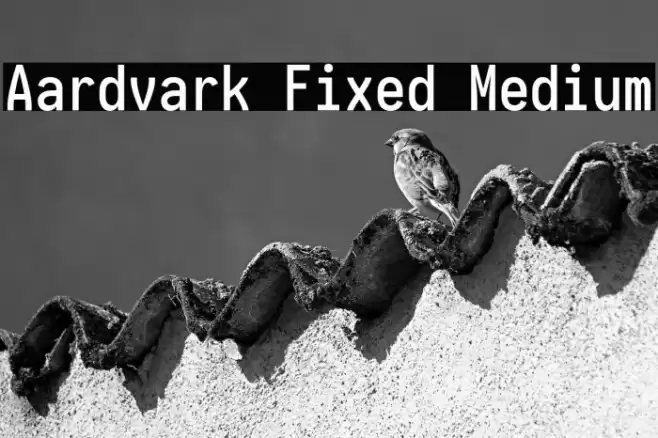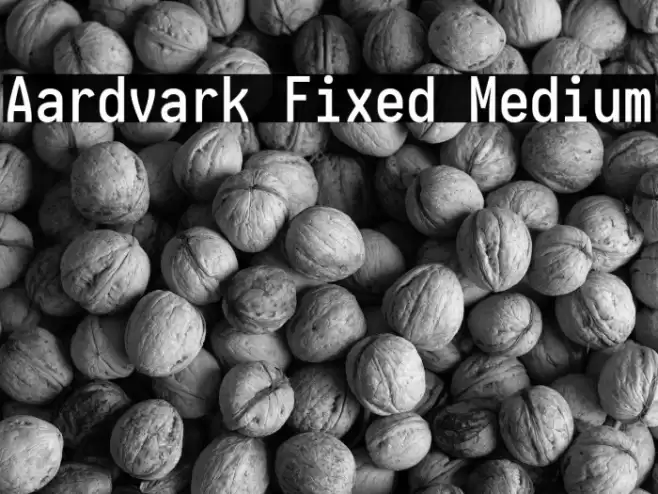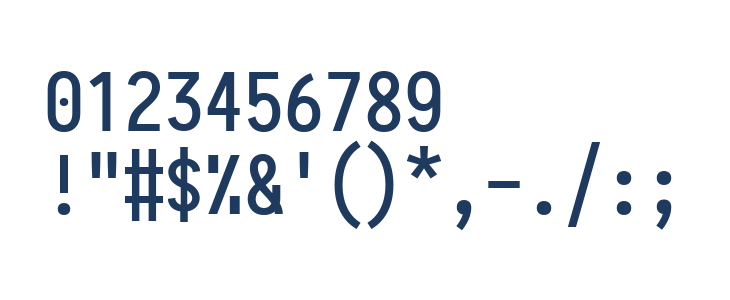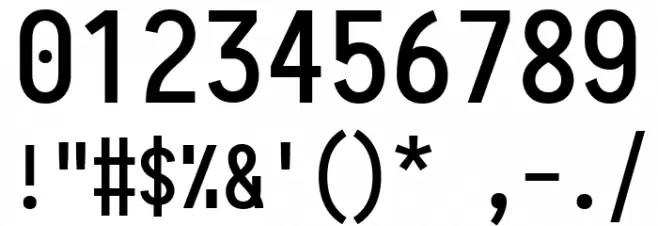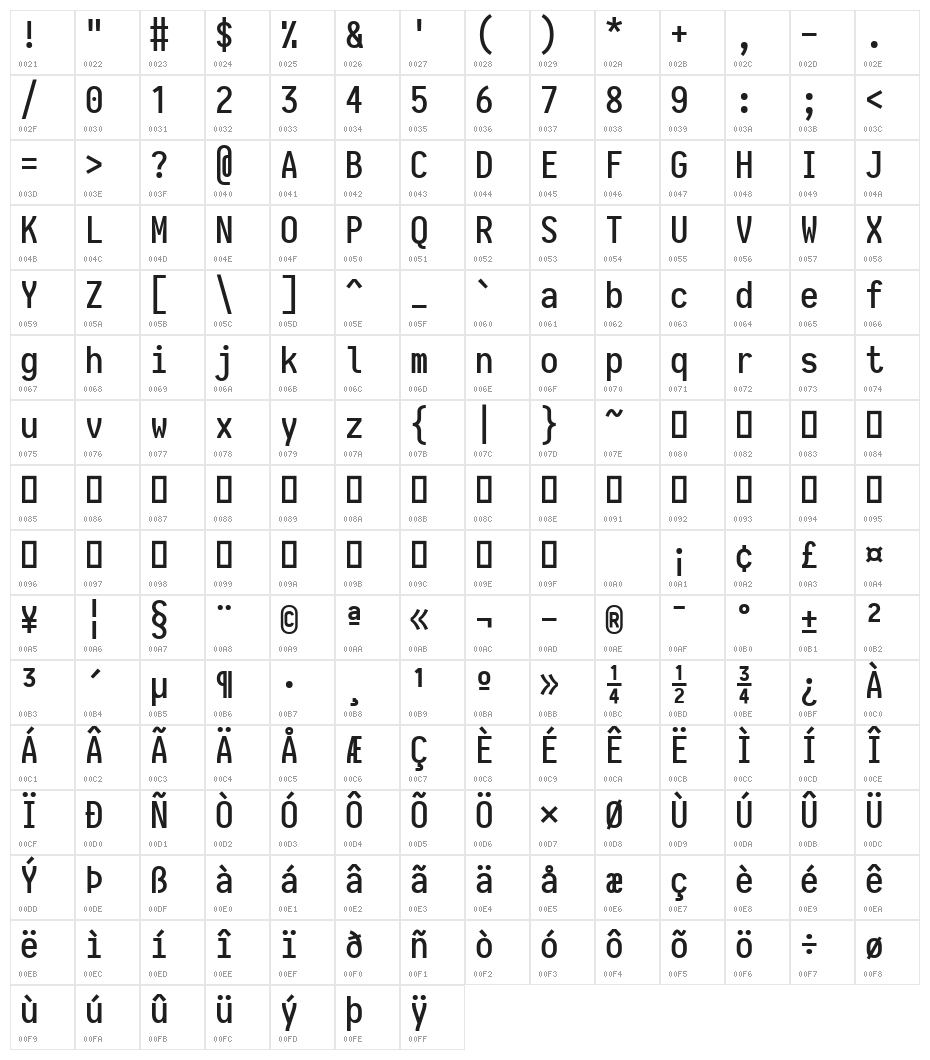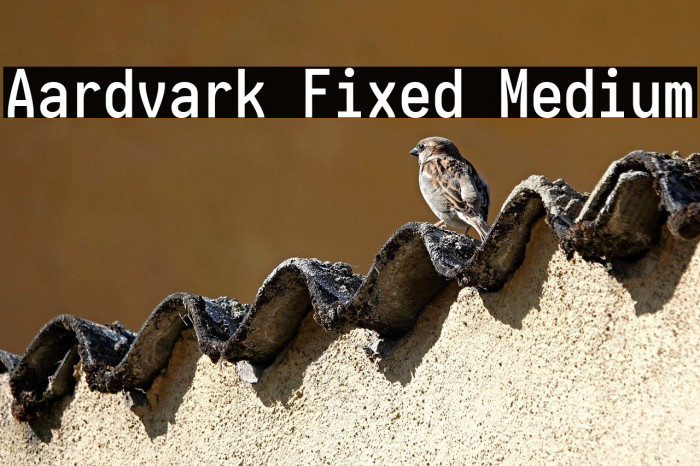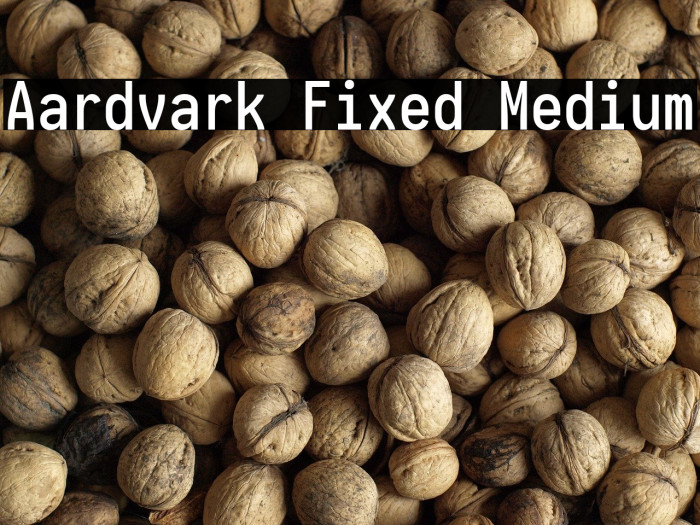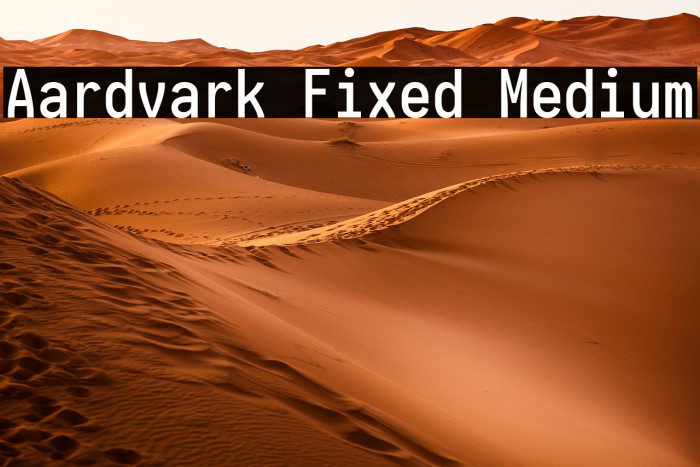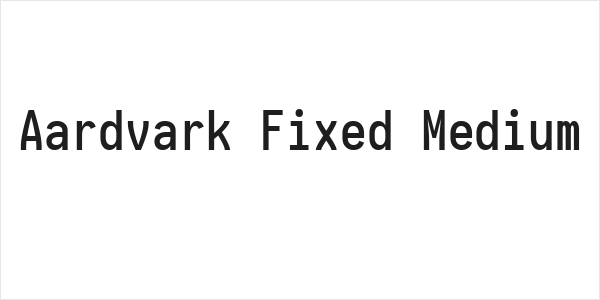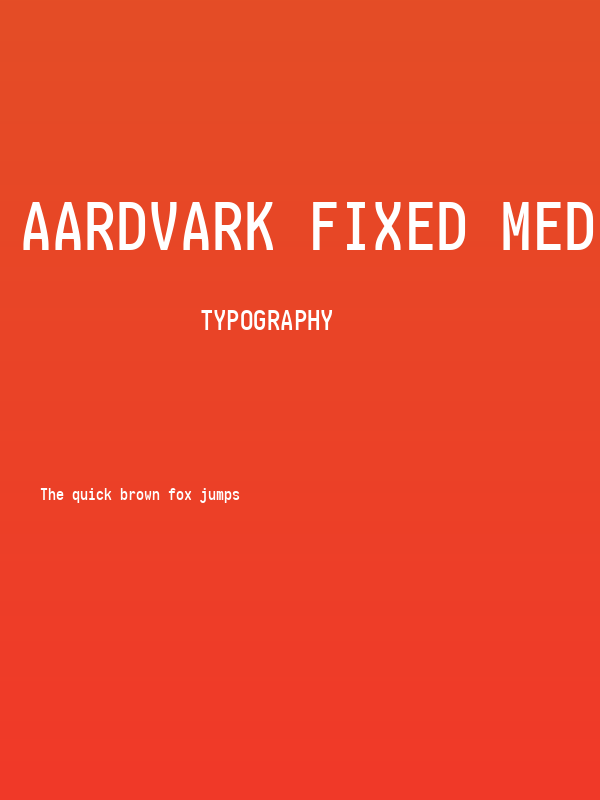
Aardvark Fixed Medium Font
Aardvark Fixed Medium Description
This font features a clean and structured design with a monospaced style, providing uniformity in character width. The uppercase and lowercase letters are well-proportioned, with a geometric influence that enhances readability. The numerals and special characters maintain the same width, ensuring consistency across different text elements. Its simplicity and clarity make it suitable for technical documents and coding environments. The strokes are even, with minimal contrast, contributing to its straightforward appearance.
A clean, monospaced font with geometric influences and consistent character width from Uncategorized fonts.
- Proposed Projects: Ideal for coding, technical documentation, and any project requiring a uniform text appearance.
- Use Case: Coding, Technical documentation, User interfaces